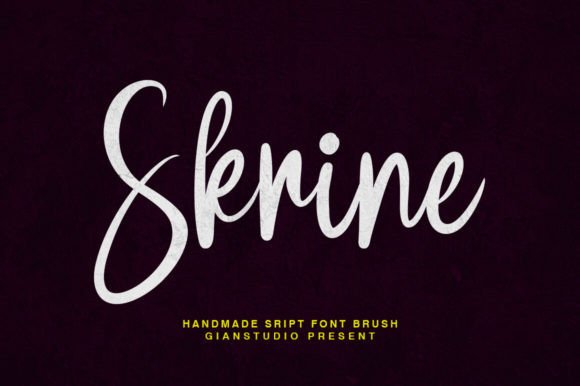
Skrine Font: Elevate Your Creative Projects with Elegance
In the realm of typography, a font can make all the difference in transforming a simple design into a masterpiece. Skrine Font, a stylish handwritten font, has been carefully crafted with a touch of elegance, making it the perfect choice for those looking to add a dash of sophistication to their creative projects. Whether you’re a social media enthusiast seeking fonts for Instagram or a DIY enthusiast looking for calligraphy scripts, Skrine Font is here to turn your ideas into true pieces of art.
What is Skrine Font?
Skrine Font is a modern, handwritten typeface designed to bring a sense of elegance and style to various design projects. Its unique, flowing script makes it stand out from more traditional fonts, offering a fresh and contemporary look that’s perfect for a wide range of applications. From creative branding to social media posts, and from DIY crafts to professional design projects, Skrine Font is versatile enough to make an impact in any context.
Key Features of Skrine Font
- Elegant and Stylish: Skrine Font boasts an elegant and stylish appearance, making it ideal for projects that require a touch of sophistication.
- Handwritten with Care: The font’s handwritten nature gives it a personal and unique feel, perfect for adding a human touch to designs.
- Versatile: Skrine Font can be used across various platforms and projects, from digital media like Instagram and blogs to print materials such as posters and flyers.
- Easy to Read: Despite its stylized appearance, Skrine Font maintains a high level of readability, ensuring that messages are conveyed clearly and effectively.
- Customizable: Being a digital font, Skrine can be easily manipulated and customized to fit the specific needs of a project, whether it’s adjusting the size, color, or integrating it with other typography.
Celebrating Creativity: Usage Ideas for Skrine Font
Skrine Font’s versatility means it can be used in countless creative projects. Here are some ideas to get you started:
- Social Media Graphics: Elevate your Instagram posts, Facebook updates, and Twitter headers with Skrine Font’s stylish and elegant look.
- DIY Projects: Add a personal touch to your handmade crafts, journal entries, and DIY decor with beautiful calligraphy scripts.
- Branding and Logo Design: Use Skrine Font to create unique and memorable brand identities that stand out from the competition.
- Wedding and Event Planning: Skrine Font is perfect for creating elegant invitations, place cards, and event signage.
- Graphic Design Projects: Incorporate Skrine Font into your brochures, posters, and flyers to add a touch of elegance and sophistication.
Tips for Using Skrine Font Effectively
To maximize the impact of Skrine Font in your projects, consider the following tips:
- Pair with Complementary Fonts: Combine Skrine Font with simpler, sans-serif fonts for body text to create visual contrast and enhance readability.
- Adjust Size and Color: Experiment with different sizes and colors to emphasize certain parts of your text and create a visual hierarchy.
- Consider the Context: Tailor your use of Skrine Font to fit the tone and theme of your project, ensuring consistency in your design.
- Play with Spacing: Don’t forget to adjust the spacing between letters and lines to improve readability and aesthetic appeal.
Skrine Font offers a perfect blend of elegance, style, and versatility, making it an excellent choice for a wide range of creative projects. Whether you’re a professional designer looking for a sophisticated typeface or a DIY enthusiast seeking to add a personal touch to your crafts, Skrine Font has the potential to elevate your designs and turn your creative ideas into true pieces of art. With its elegant appearance, readability, and flexibility, Skrine Font is sure to leave a lasting impression on your audience.